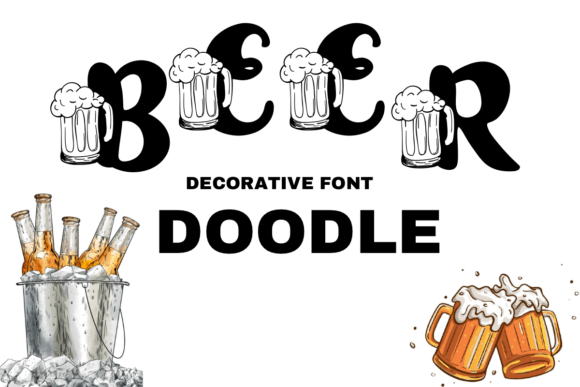
Tap into the Fun with Beer Doodle Font
Who hasn’t been there – sipping a cold beer, surrounded by good friends, and enjoying the simple pleasures in life? It’s moments like these that inspire creativity and bring us closer to our true selves. For designers, capturing the essence of these moments in their work can be a challenge. That’s where the Beer Doodle Font comes in – a high-energy decorative typeface that combines bold lettering with hand-drawn brew illustrations.
Designed specifically for the hospitality and entertainment industry, the Beer Doodle Font is a standout choice for craft brewery menus, pub event posters, and backyard BBQ invitations. Its quirky, bubbly characters paired with frothy mug and bottle doodles inject an instant sense of fun and relaxation into any design.
Key Features of Beer Doodle Font
- Unique Characteristics: Beer Doodle Font features a playful, hand-drawn design with a focus on creating a fun and casual atmosphere. The font includes a range of quirky, doodle-like elements, such as splatters and scribbles, adding a touch of whimsy to any design.
- Character Set: The font includes a comprehensive character set, including uppercase and lowercase letters, numbers, punctuation marks, and a range of special characters, making it suitable for a wide range of applications.
- Font Weight and Style: Beer Doodle Font is available in a single font weight and style, creating a consistent and cohesive look across all designs. The font is designed to be highly versatile, making it suitable for use in a variety of contexts, from casual to formal.
Beer Doodle Font Review
Overall, I’m quite impressed with the Beer Doodle Font. It’s a fun and quirky font that’s perfect for designers looking to add a touch of whimsy to their projects.
- ✨ Unique design: The font’s hand-drawn style and playful character set it apart from more traditional fonts.
- ✨ High quality: The font is well-crafted, with smooth lines and clear typography.
- ✨ Versatile: The font is suitable for a wide range of projects, from branding and advertising to digital and print design.
- ⚠️ Limited character set: While the font has a decent number of characters, it’s not exhaustive, and some characters may not be included.
- ⚠️ May not be suitable for formal projects: The font’s playful nature may not be suitable for more formal or professional projects.
Overall, I think the Beer Doodle Font is a great addition to any designer’s toolkit. While it may have some limitations, its unique design and high quality make it a great choice for designers looking to add some personality to their projects.
The Beer Doodle Font is ideal for:
- Craft beer labels and branding
- Food and beverage packaging design
- Fun and creative social media posts
- Personalized gifts and merchandise
Can I customize Beer Doodle Font to fit my design needs?
Yes, Beer Doodle Font is highly customizable. Its OpenType features allow for advanced typographic control, including ligatures, swashes, and stylistic sets. You can also use font editors or software like FontForge to modify the font’s metrics, spacing, and other characteristics to suit your design requirements.